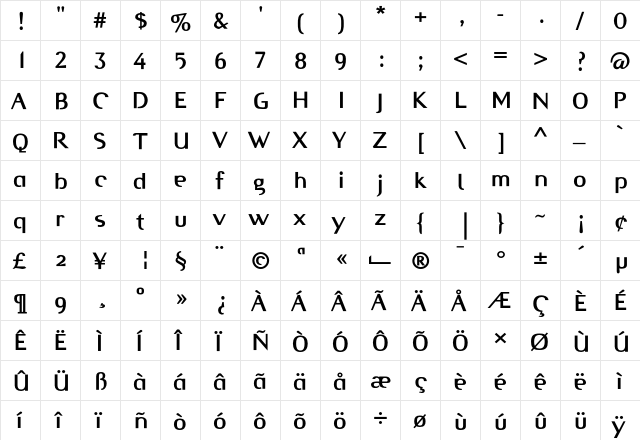
CensorSans Bold
Design Context for CensorSans Typeface
CensorSans is a composed and adaptable typeface that performs quietly and consistently across a wide range of design contexts. Its bold stroke weight gives it real presence on the page.